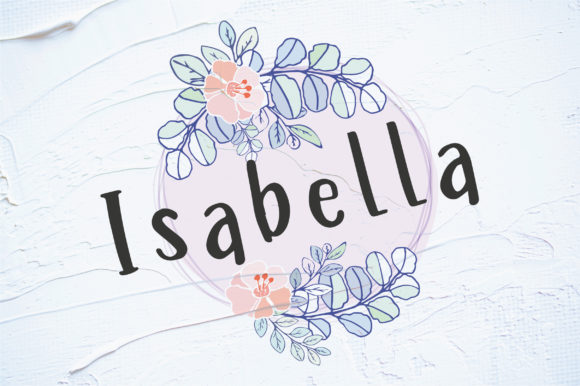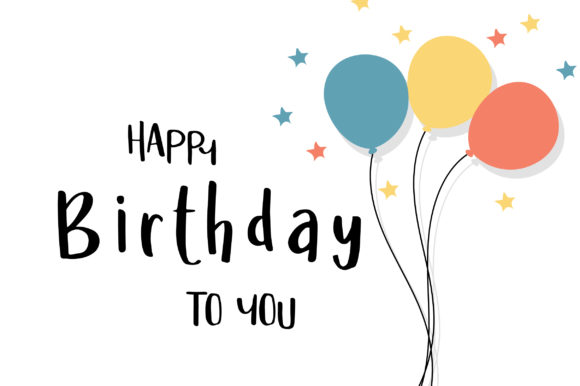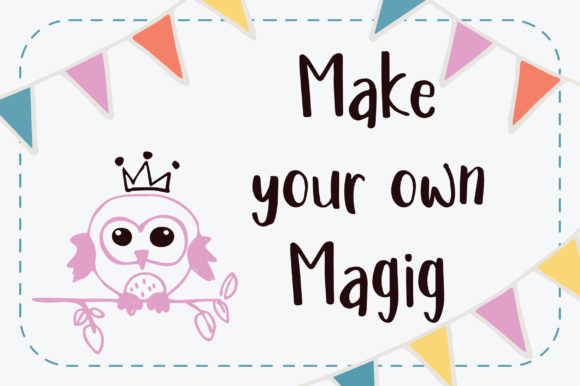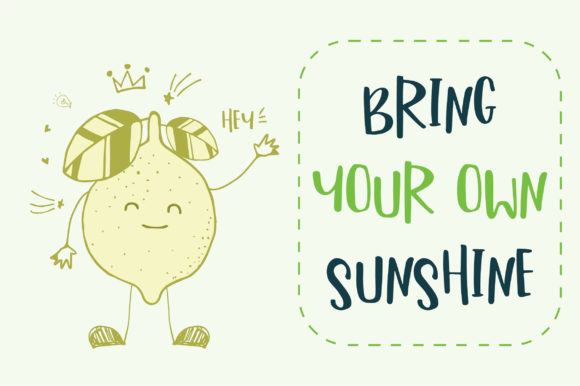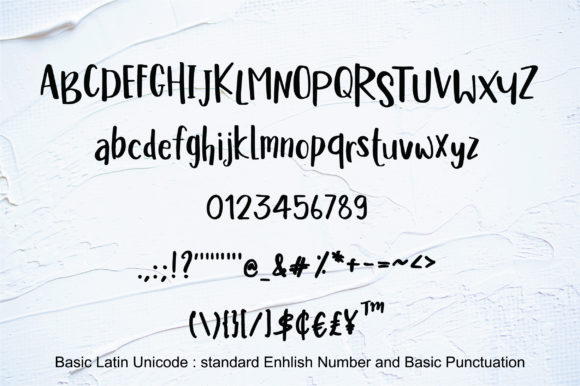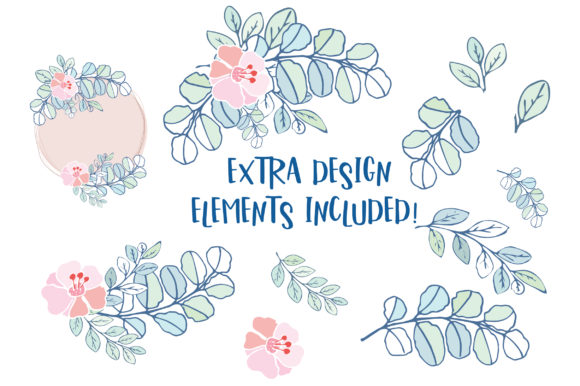
Introduction to Kidzone Font
As a designer, have you ever found yourself staring at a blank canvas, eager to bring a new idea to life? The blank page can be daunting, but with the right tools, creativity can flow effortlessly. For designers working on a project that requires a touch of whimsy and friendliness, Kidzone Font is the perfect companion.
With its cheerful and handwritten style, Kidzone Font is a valuable resource for any design project. Whether you’re creating an illustration, poster, logo, or book cover, this font is sure to add a playful touch. Its high quality design makes it a standout choice for designers looking to elevate their creative project.
Key Features of Kidzone Font
• High-quality design resource perfect for creative projects, including children’s books, educational materials, and more.
• Unique, playful characters with transparent background, ideal for designing visually appealing graphics and illustrations.
• Designed with a focus on readability and clarity, making it suitable for various applications, from print to digital media.
• Perfect for designers, educators, and parents seeking a fun and engaging font for their creative projects.
Honest Review: Kidzone Font
I recently stumbled upon the Kidzone Font, and I must say it’s a great addition to my design resource library. The font is perfect for any creative project that requires a fun and playful touch.
What works well: ✨ The font is highly customizable, with a wide range of styles and sizes to choose from. The transparent background feature is also a great plus, making it easy to integrate with any design.
Here are some of the key features I love about the Kidzone Font:
• High-quality design that’s perfect for kids’ projects or educational materials
However, there are a few limitations to keep in mind: ⚠️ The font is not suitable for formal or professional projects, as it may come across as too playful. Additionally, the font may not be compatible with all operating systems or software.
Overall, I’m impressed with the Kidzone Font. It’s a great resource for designers who want to add a fun and creative touch to their projects. With its high-quality design and transparent background feature, it’s definitely worth checking out.
The Kidzone Font is a high-quality design resource ideal for creative projects that require a fun and playful touch. This versatile font features a transparent background, making it easy to customize and integrate into various design elements.
Tips for Getting the Most Out of Kidzone Font
For best results, use the Kidzone Font in conjunction with other playful design elements, such as colorful graphics and illustrations. Experiment with different font sizes and styles to add visual interest to your design.
The Kidzone Font is ideal for a variety of design projects, including:
• Children’s book covers and illustrations
• Party invitations and decorations
• Education and learning materials
Alternatives to Kidzone Font